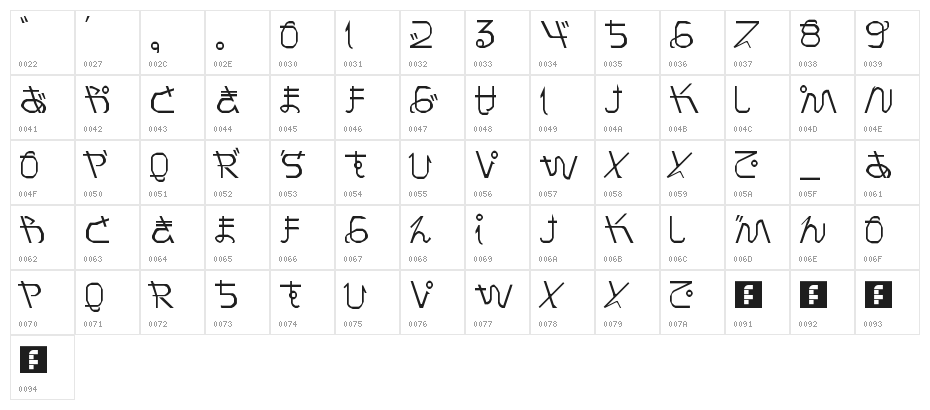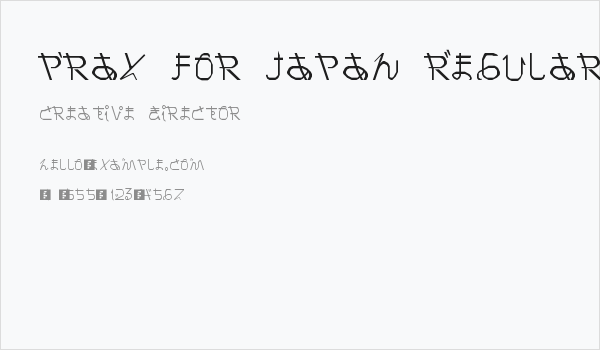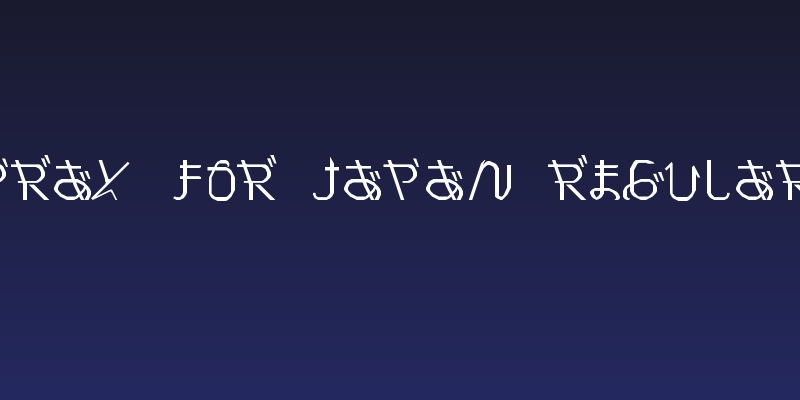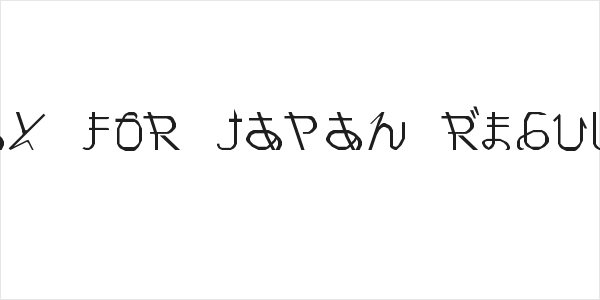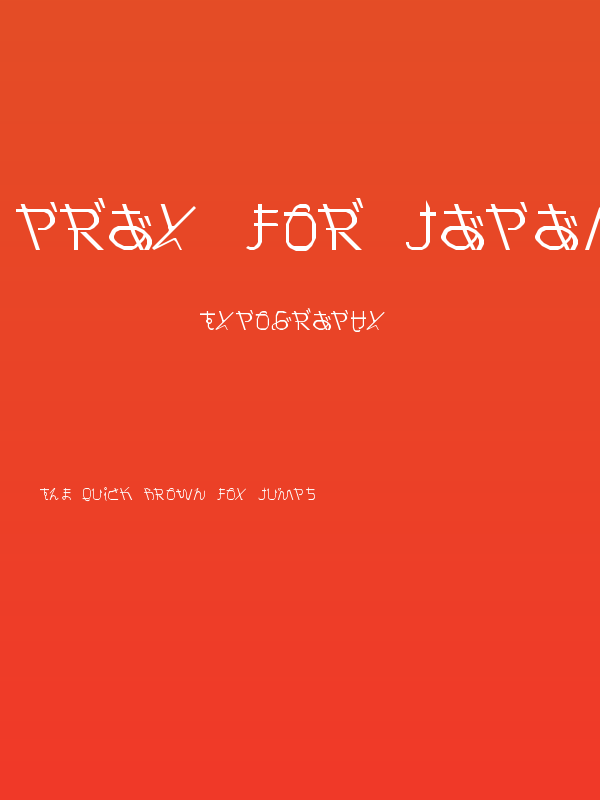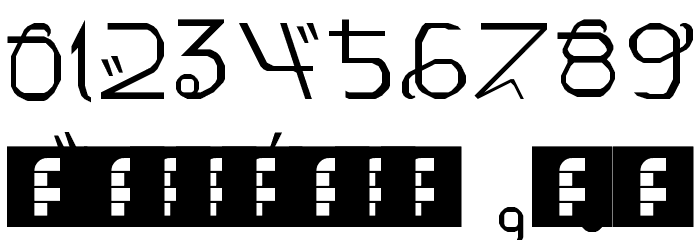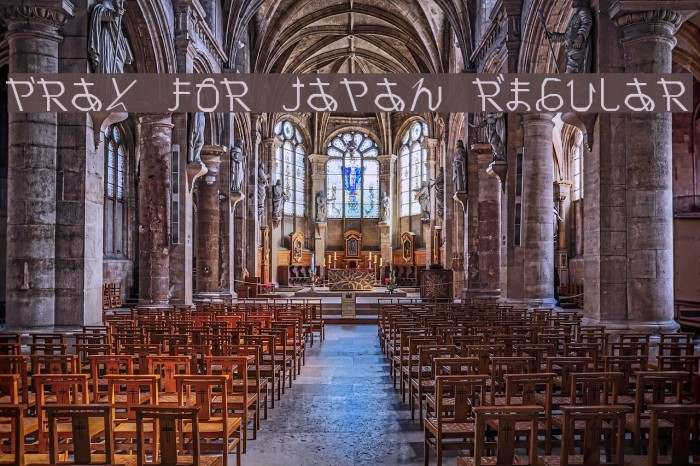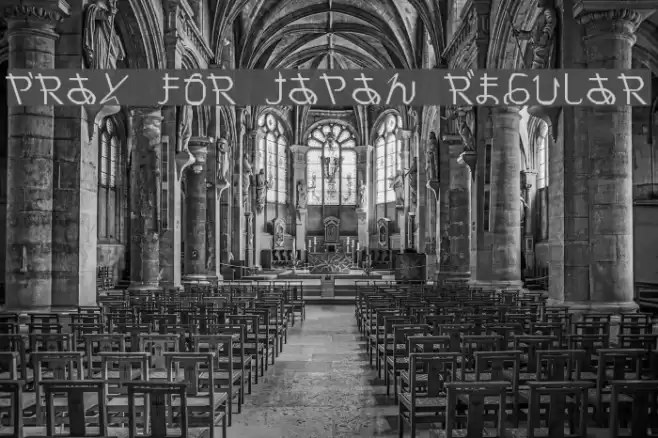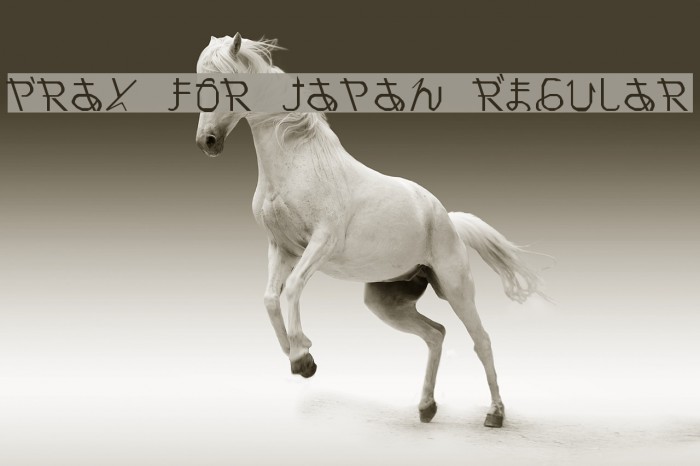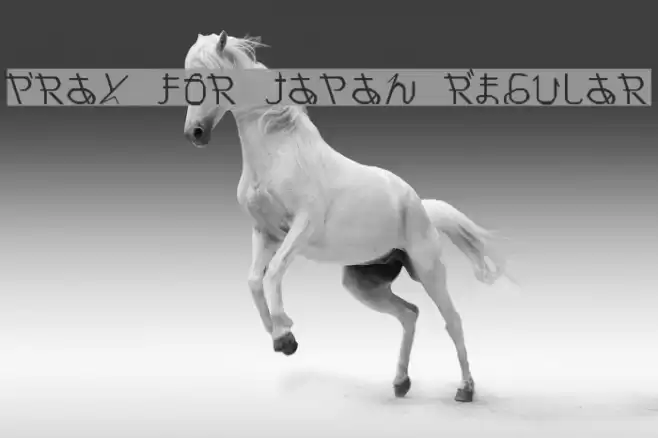
Pray for Japan Regular Font
Pray for Japan Regular Description
This font features a unique and artistic design with a modern twist. The characters are stylized with a blend of geometric and organic shapes, creating a dynamic and visually engaging appearance. The uppercase and lowercase letters maintain a consistent style, with angular lines and subtle curves that add a sense of movement. Numbers and special characters are designed to match the overall aesthetic, ensuring a cohesive look across all text. The font's distinct style makes it suitable for creative projects that require a bold and contemporary touch.
| Use Case | Logos, Headlines, Posters |
| Proposed Projects | Ideal for branding, posters, and creative digital artwork. |